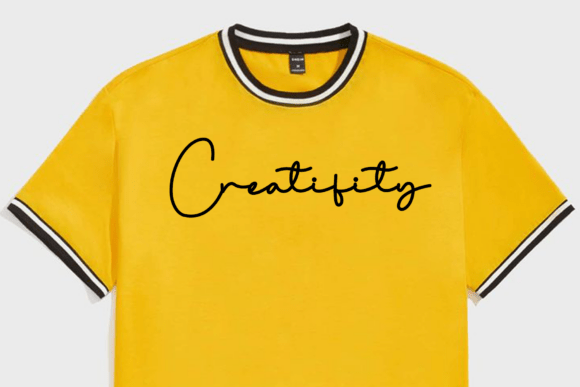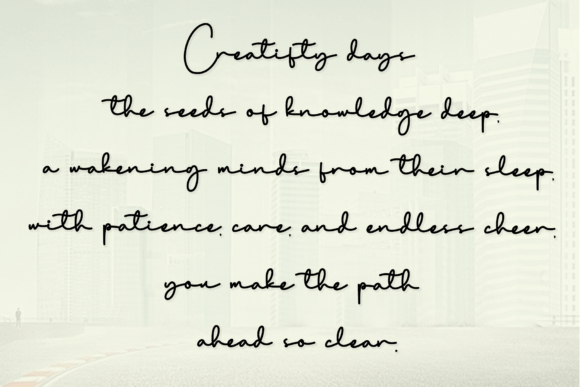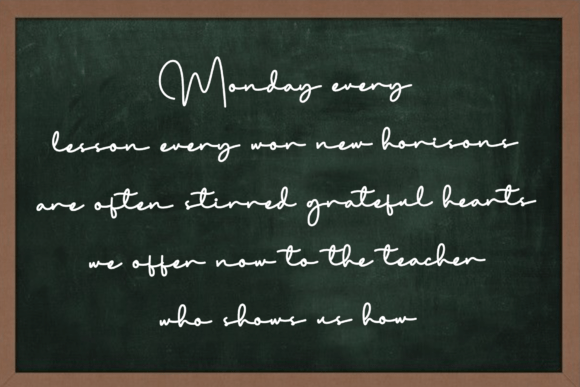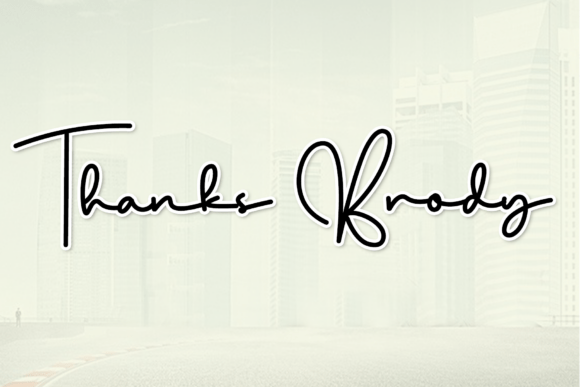
Introducing Building Manifasting Font: Elevate Your Brand with Artisanal Elegance
In the realm of typography, few fonts manage to strike a balance between sophistication and warmth. Building Manifasting Font is one such exceptional typeface that seamlessly merges a calligraphic style with an organic aesthetic, making it a premier choice for brands seeking to convey artisanal elegance. This comprehensive guide will delve into the unique characteristics of Building Manifasting Font, its ideal applications, and why it stands out as a top selection for designers and crafters.
The Distinctive Features of Building Manifasting Font
Building Manifasting Font is distinguished by its sweeping, looping ascenders that lend a sense of customized, artisanal artistry to any project. This sophisticated and rhythmic script font is not just a typeface; it’s an expression of creativity and attention to detail. The fluidity of its strokes and the warmth it exudes make it an ideal choice for brands looking to tell a story through their typography.
Ideal Applications for Building Manifasting Font
The versatility of Building Manifasting Font allows it to shine across various platforms and mediums. Some of its most suitable applications include:
- Artisanal Food Branding: For businesses that pride themselves on traditional recipes, high-quality ingredients, and a touch of personal care in their products, Building Manifasting Font offers the perfect blend of sophistication and approachability.
- Boutique Product Packaging: Stand out on crowded shelves with elegant packaging that communicates the unique value and story behind your product. This font’s distinctive style ensures your brand is remembered.
- Upscale Lifestyle Marketing: Whether promoting luxury services or high-end products, Building Manifasting Font brings an air of exclusivity and refinement that resonates with discerning audiences.
- Creative Editorial Titles: Elevate your publications, whether digital or print, with titles that capture attention and convey a sense of artisanal craftsmanship.
Why Choose Building Manifasting Font?
Building Manifasting Font is more than just a typeface; it’s a design statement. Here are a few reasons why designers and crafters are gravitating towards this exceptional font:
- Unique Aesthetic: Its looping ascenders and fluid strokes offer a unique aesthetic that sets it apart from more traditional typefaces.
- Versatility: Suitable for a wide range of applications, from digital interfaces to print materials, ensuring consistency across your brand’s touchpoints.
- Emotional Connection: The warmth and artisanal feel of Building Manifasting Font help create an emotional connection with your audience, fostering brand loyalty.
Tips for Using Building Manifasting Font Effectively
To maximize the impact of Building Manifasting Font, consider the following tips:
- Pairing: Combine it with sans-serif fonts for contrast, especially for body text, to create visual interest and hierarchy.
- Color: Utilize a color palette that complements the warmth of the font, such as earth tones or rich jewel tones, to enhance its artisanal feel.
- Spacing: Pay attention to letter spacing and line height to ensure readability while maintaining the elegant flow of the script.
Building Manifasting Font stands as a testament to the power of typography in storytelling and brand identity. Its unique blend of calligraphic sophistication and organic warmth makes it an invaluable asset for designers and crafters aiming to imbue their projects with an artisanal touch. Whether you’re crafting a brand identity, packaging, or editorial content, Building Manifasting Font offers the elegance and versatility to elevate your work to new heights.
Embark on a journey of creating artisanal elegance with Building Manifasting Font. Explore its potential, experiment with its applications, and discover how this exceptional typeface can become the voice of your brand.